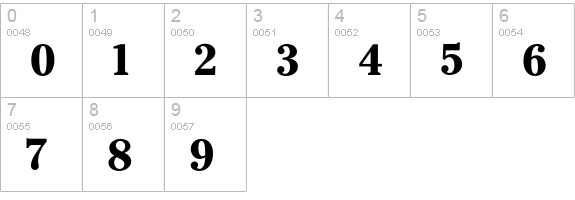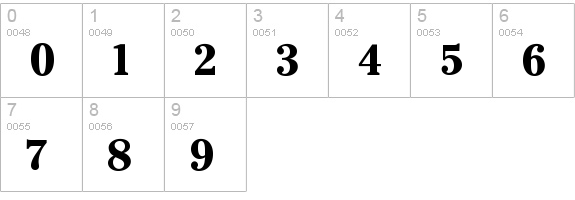
CheltenhamBold Font Details
CheltenhamBold is a striking and versatile font that exudes elegance and sophistication. With its bold and commanding presence, this typeface is perfect for making a statement in any design project. The strong, clean lines of CheltenhamBold make it ideal for headlines, logos, and other attention-grabbing elements. Whether you're creating a print advertisement, website banner, or signage, CheltenhamBold will ensure that your message stands out. And the best part? CheltenhamBold is available for free download exclusively at FontsMarket.com. Now you can add this stunning font to your collection without breaking the bank. Don't miss out on the opportunity to enhance your designs with the timeless beauty of CheltenhamBold. Download it today and see the difference it can make in your projects.